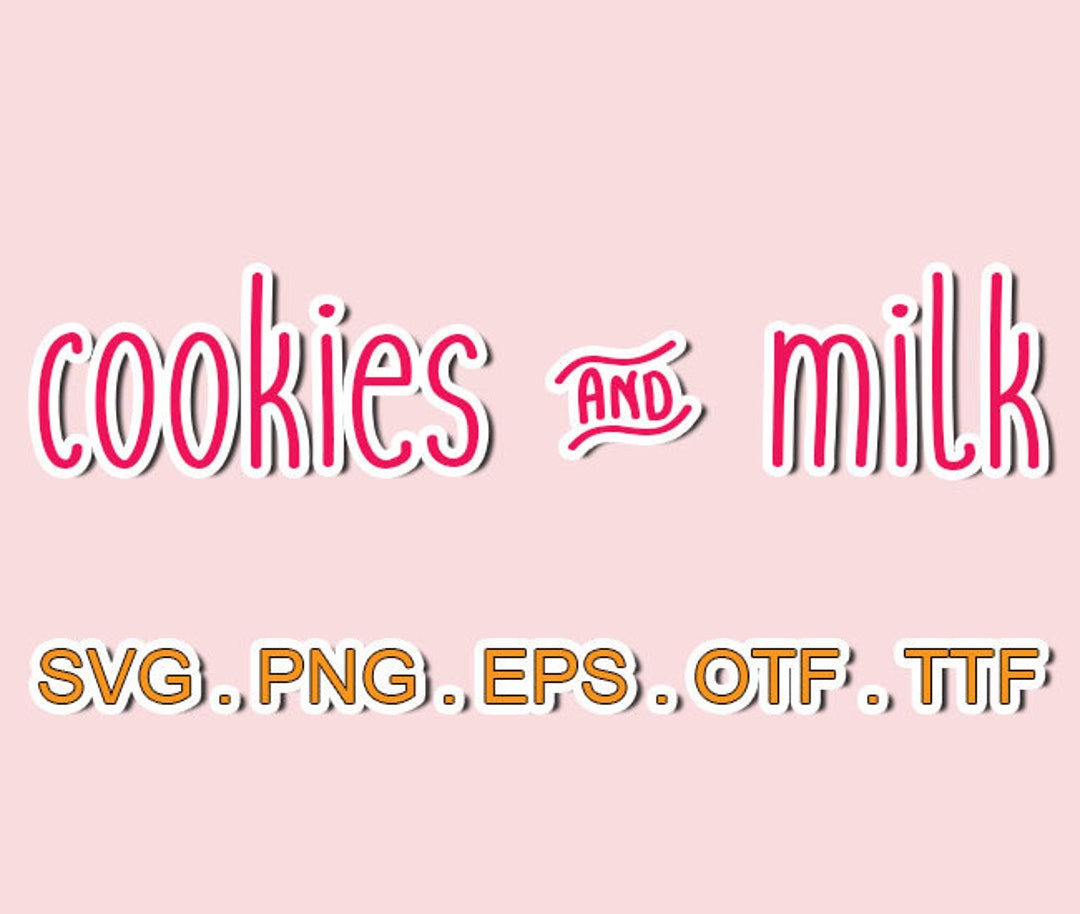
Cookies And Milk Font . Free download of cookies and milk font. Font cookies&milk, license and terms of use, symbols, categories, supported languages, download link. It also features numbers, symbols and language support. Cookies & milk € by shaped fonts. Available in several styles including light, regular, and bold, each with an italic variant, cookies and milk ensures a wide range of creative possibilities. Click now to create a custom image with your own words that you can download. This playful and decorative font features letters and. Download the latest cookies and milk font for windows, mac, & linux exclusively at font canyon. It is free for personal use only, so for any commercial use buy an license.
Cookies & Milk Font
Cookies And Milk Font Font cookies&milk, license and terms of use, symbols, categories, supported languages, download link. Available in several styles including light, regular, and bold, each with an italic variant, cookies and milk ensures a wide range of creative possibilities. It also features numbers, symbols and language support. Free download of cookies and milk font. Cookies & milk € by shaped fonts. Click now to create a custom image with your own words that you can download. This playful and decorative font features letters and. It is free for personal use only, so for any commercial use buy an license. Download the latest cookies and milk font for windows, mac, & linux exclusively at font canyon. Font cookies&milk, license and terms of use, symbols, categories, supported languages, download link.
cookies and milk A free handwritten font Behance Cookies And Milk Font Free download of cookies and milk font. Download the latest cookies and milk font for windows, mac, & linux exclusively at font canyon. Available in several styles including light, regular, and bold, each with an italic variant, cookies and milk ensures a wide range of creative possibilities. Cookies & milk € by shaped fonts. Font cookies&milk, license and terms of. Cookies And Milk Font.
Cookies and milk Font Free Fonts Cookies And Milk Font It also features numbers, symbols and language support. Free download of cookies and milk font. Cookies & milk € by shaped fonts. Download the latest cookies and milk font for windows, mac, & linux exclusively at font canyon. It is free for personal use only, so for any commercial use buy an license. Available in several styles including light, regular,. Cookies And Milk Font.
Free Download Cookies and Milk Font Cookies And Milk Font It is free for personal use only, so for any commercial use buy an license. Font cookies&milk, license and terms of use, symbols, categories, supported languages, download link. This playful and decorative font features letters and. Click now to create a custom image with your own words that you can download. Free download of cookies and milk font. It also. Cookies And Milk Font.
Cookies And Milk Font Fonts Studio Cookies And Milk Font Download the latest cookies and milk font for windows, mac, & linux exclusively at font canyon. This playful and decorative font features letters and. Available in several styles including light, regular, and bold, each with an italic variant, cookies and milk ensures a wide range of creative possibilities. It also features numbers, symbols and language support. Cookies & milk €. Cookies And Milk Font.